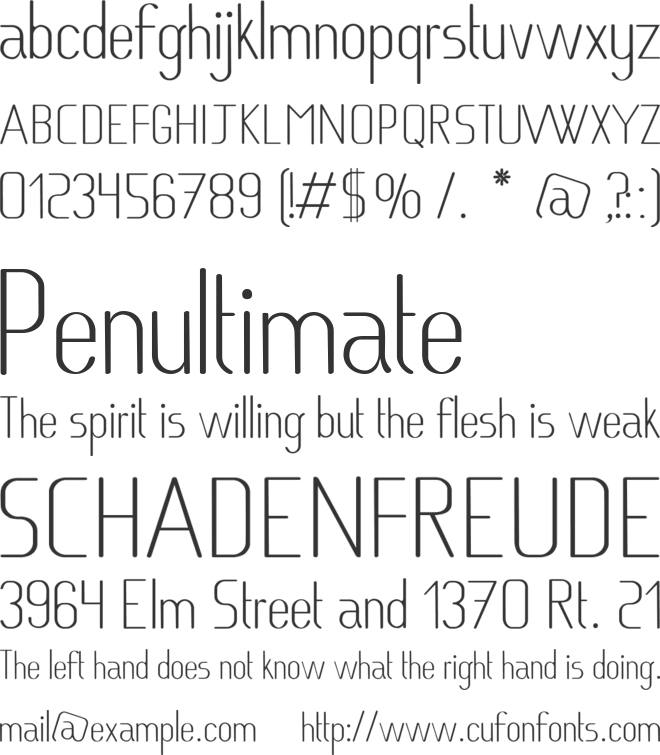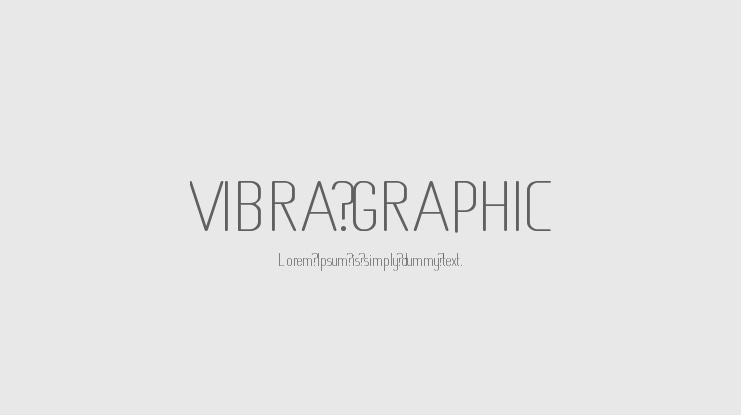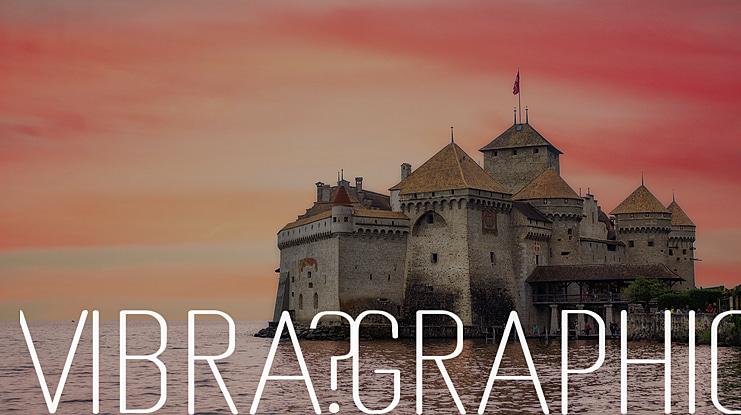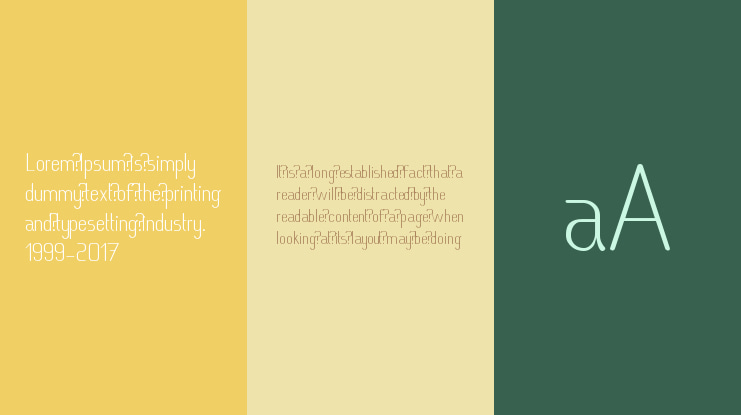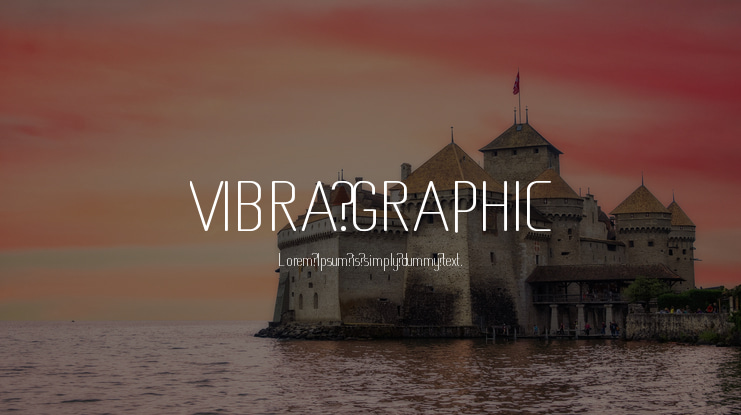
VIBRA GRAPHIC Font Family
Calixte Patissier
Introducing Vibra Type from Calixte Patissier. Vibra Type is an extremely unique display font that features 2 weights each with 2 sets of capital letters - a standard set, and also a set with modern geometric characters. These extra characters make this font perfect for eye catching logos, posters & headlines.